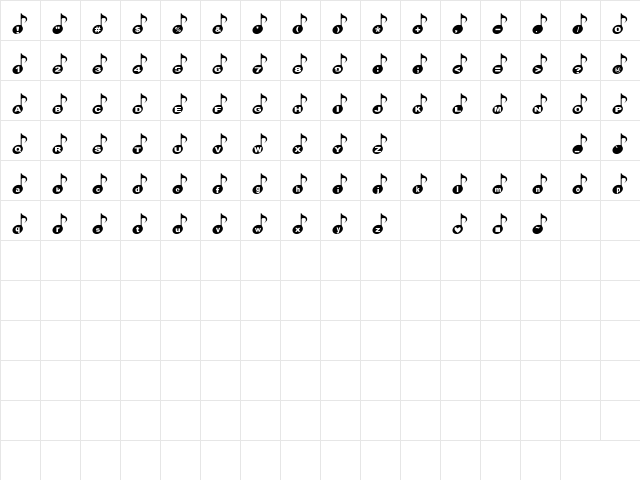
Onpu Regular
Design Context for Onpu Typeface
Onpu is a composed and adaptable typeface that performs quietly and consistently across a wide range of design contexts.